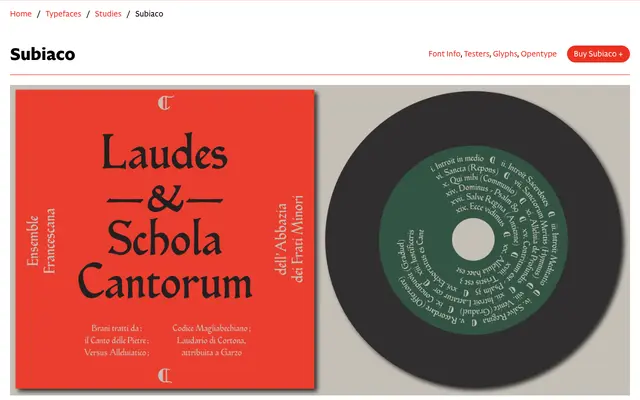
Subiaco
CAST · Claudio Vincoletto · 2018
A revival of a revival, tracing the letterforms of the Ashendene Press back to the first books printed in Italy in 1465, produced using Metafont by Claudio Vincoletto.
The typeface reconstructs the Ashendene Press Subiaco type of around 1900, which was itself drawn from the proto-roman cut by Sweynheym and Pannartz at the Benedictine abbey of Subiaco. Vincoletto used Metafont to define the ductus of a virtual pen, overlaying grids on photographic enlargements of printed pages to establish geometric coordinates for each letterform. The result carries low contrast, long ascenders and descenders, blunt exit strokes and a substantial set of OpenType features including ligatures, scribal abbreviations and historical alternates that allow typographers to move between the two source revivals.
Subiaco traces its lineage directly to the hybrid proto-roman of Sweynheym and Pannartz (1465), combining formal humanist script traits with calligraphic qualities; this places it firmly in the humanist serif tradition, predating the fully developed roman but distinct from gothic or blackletter forms.